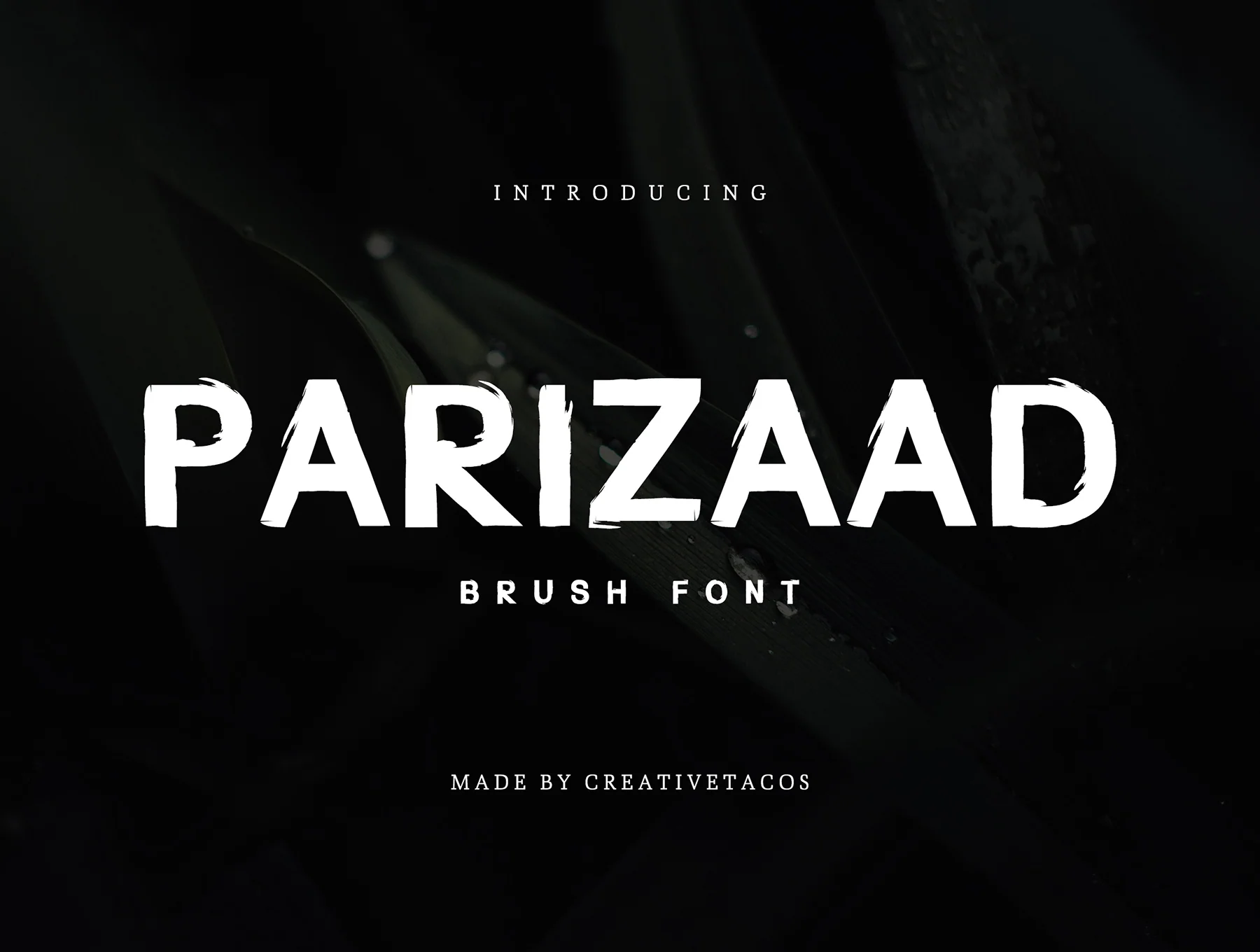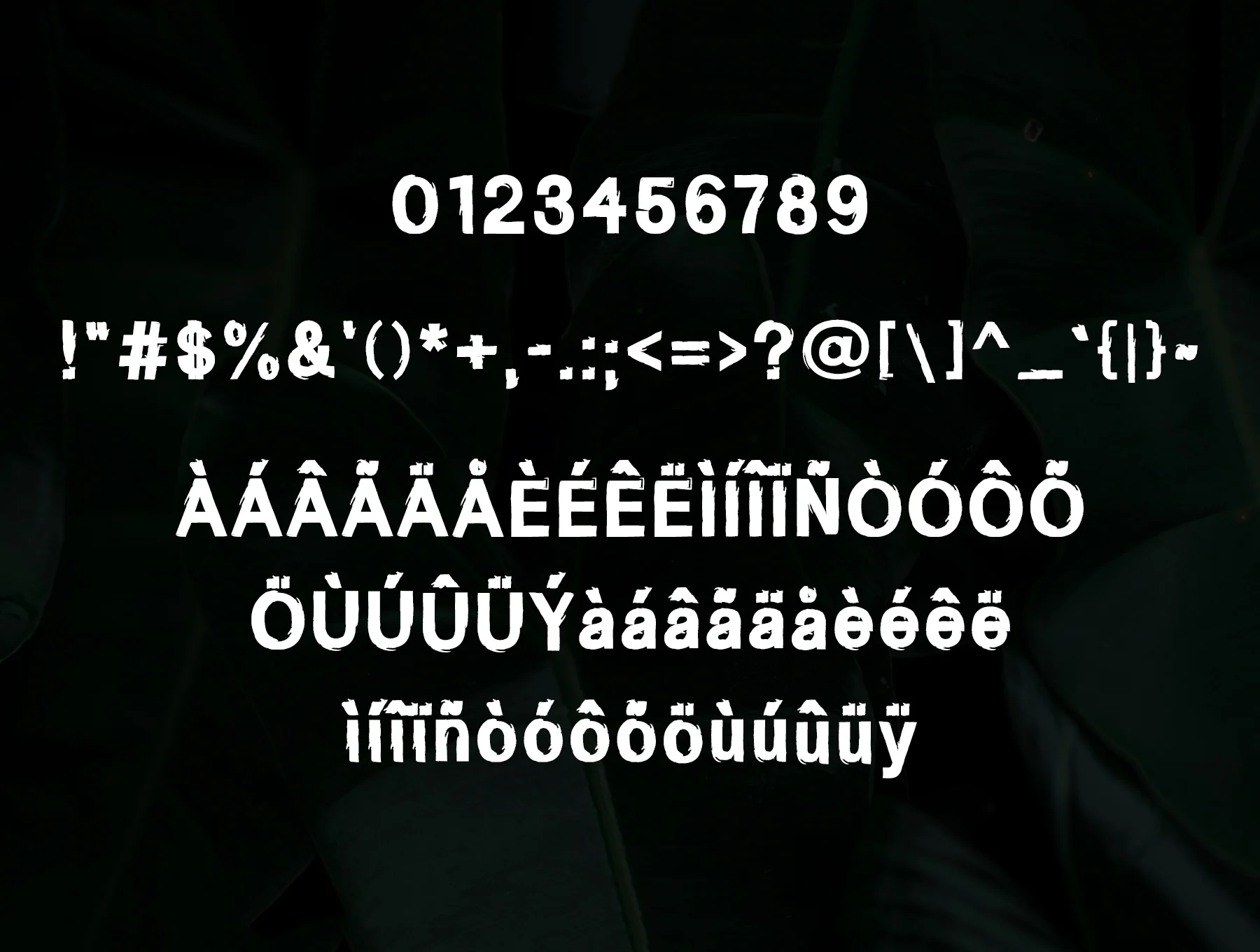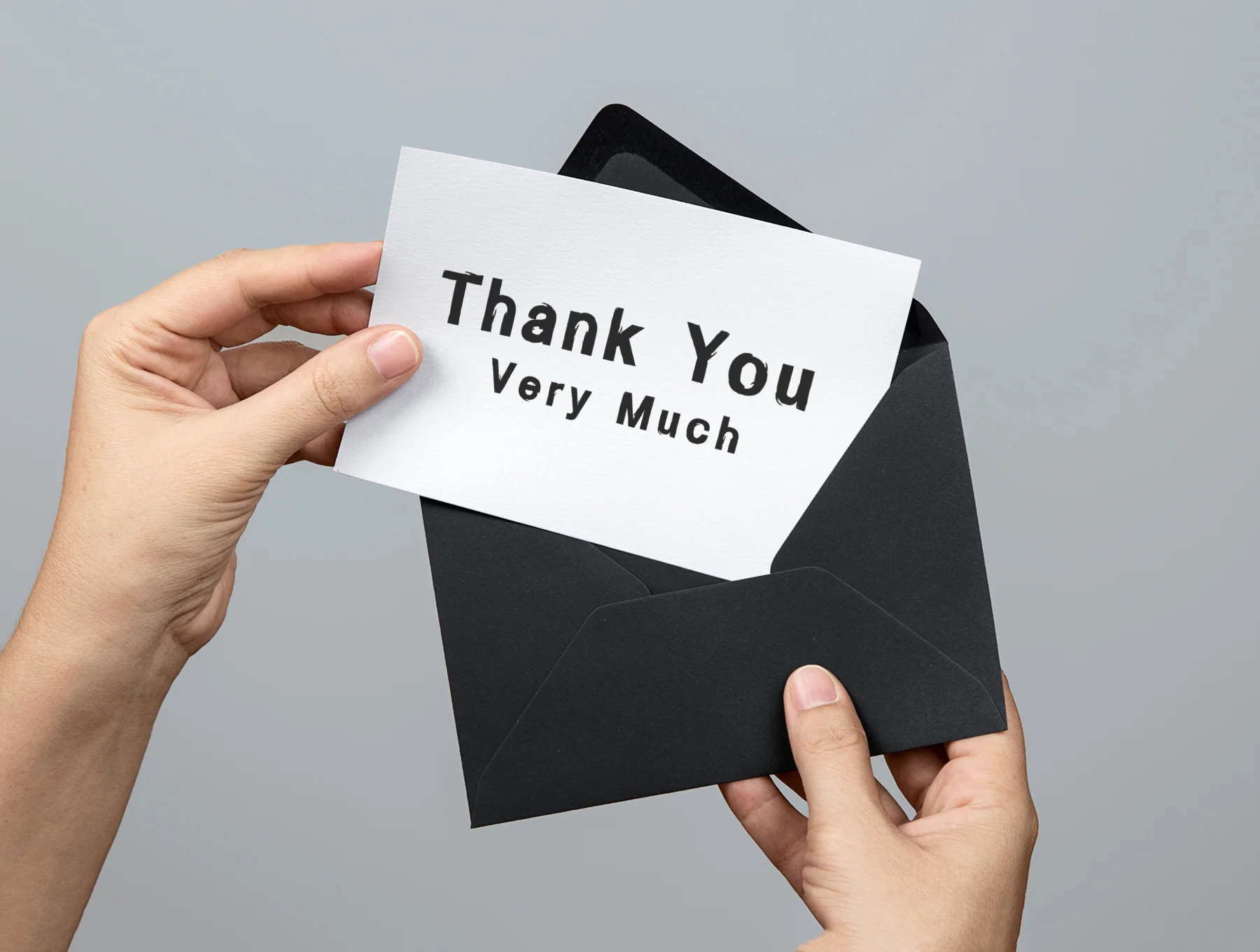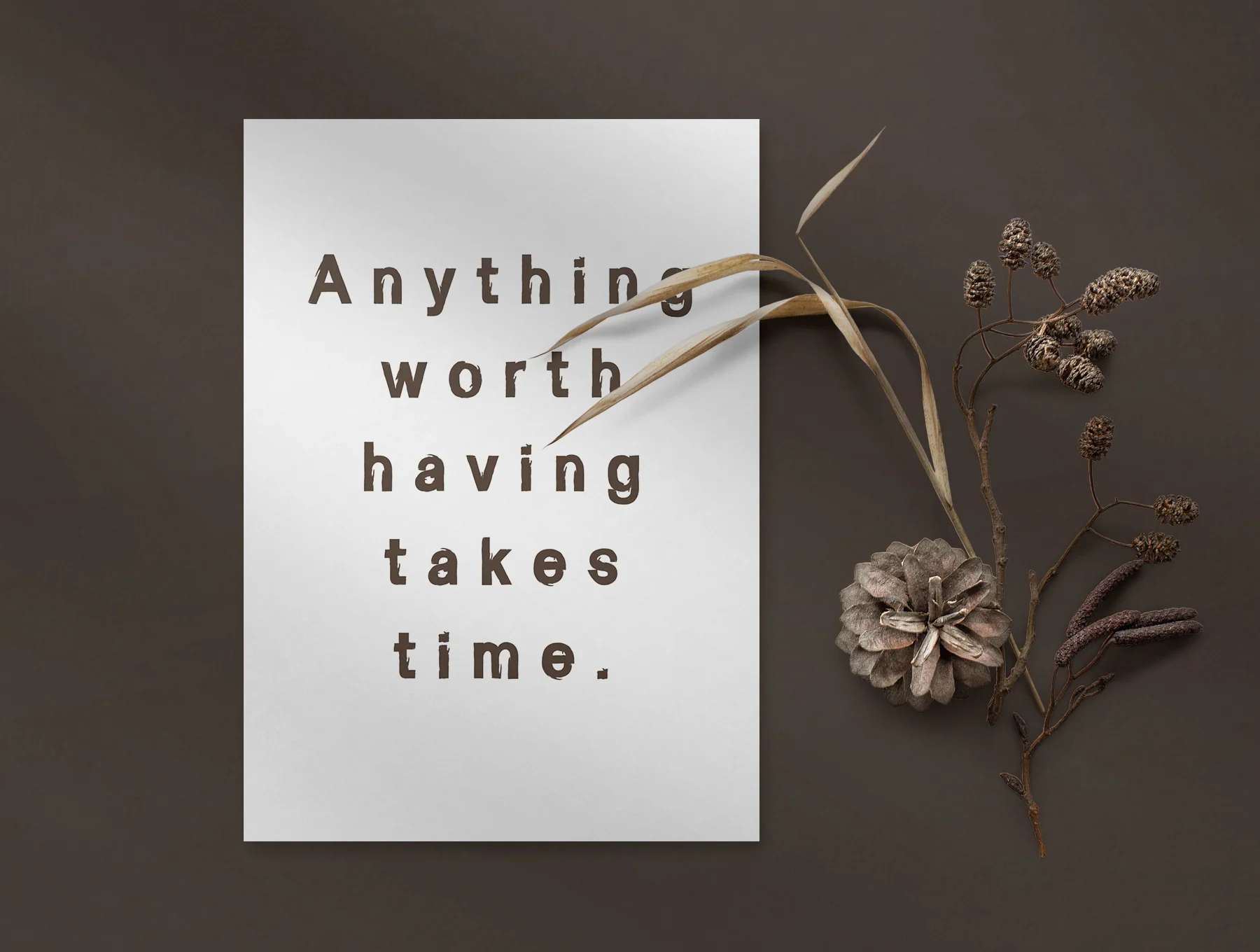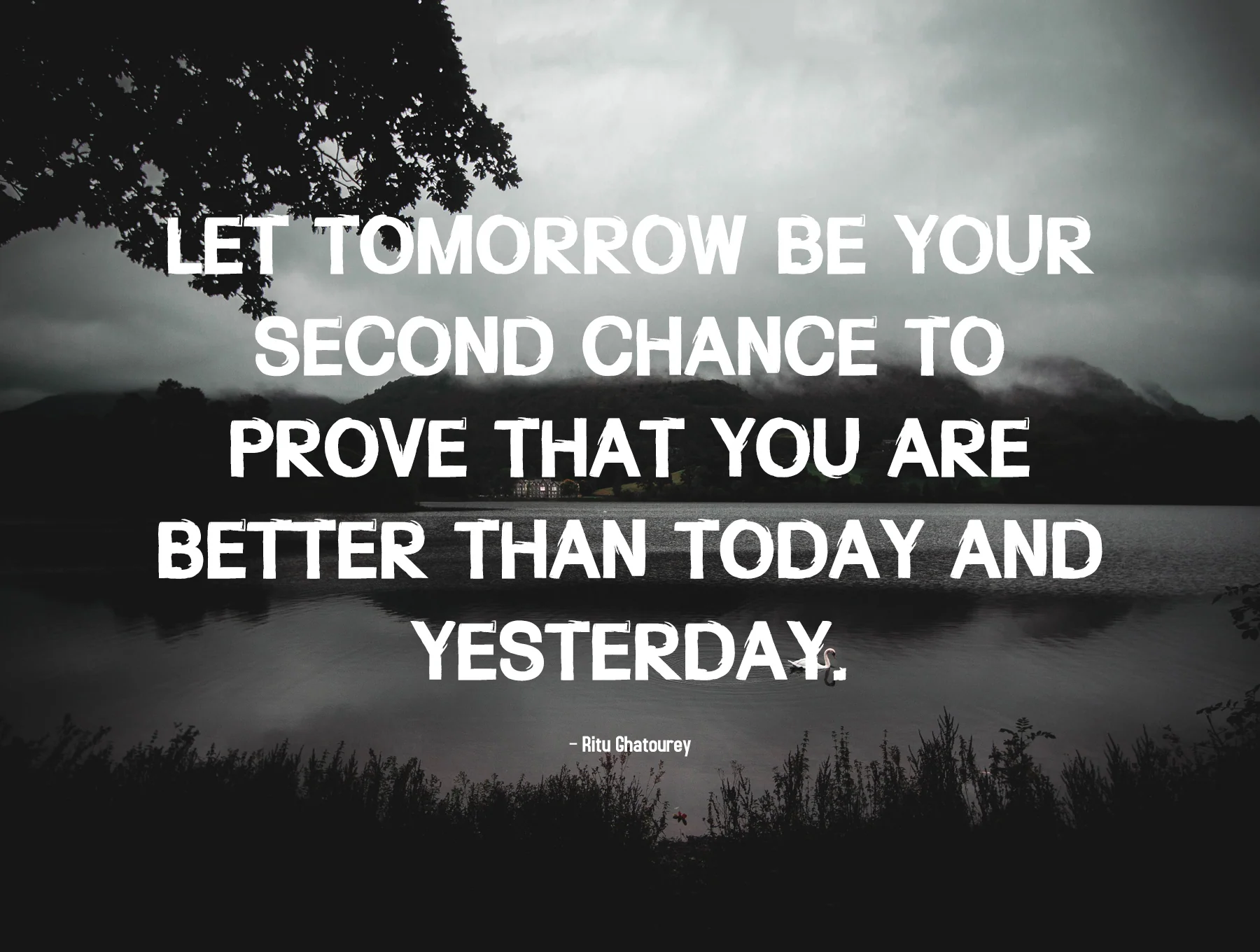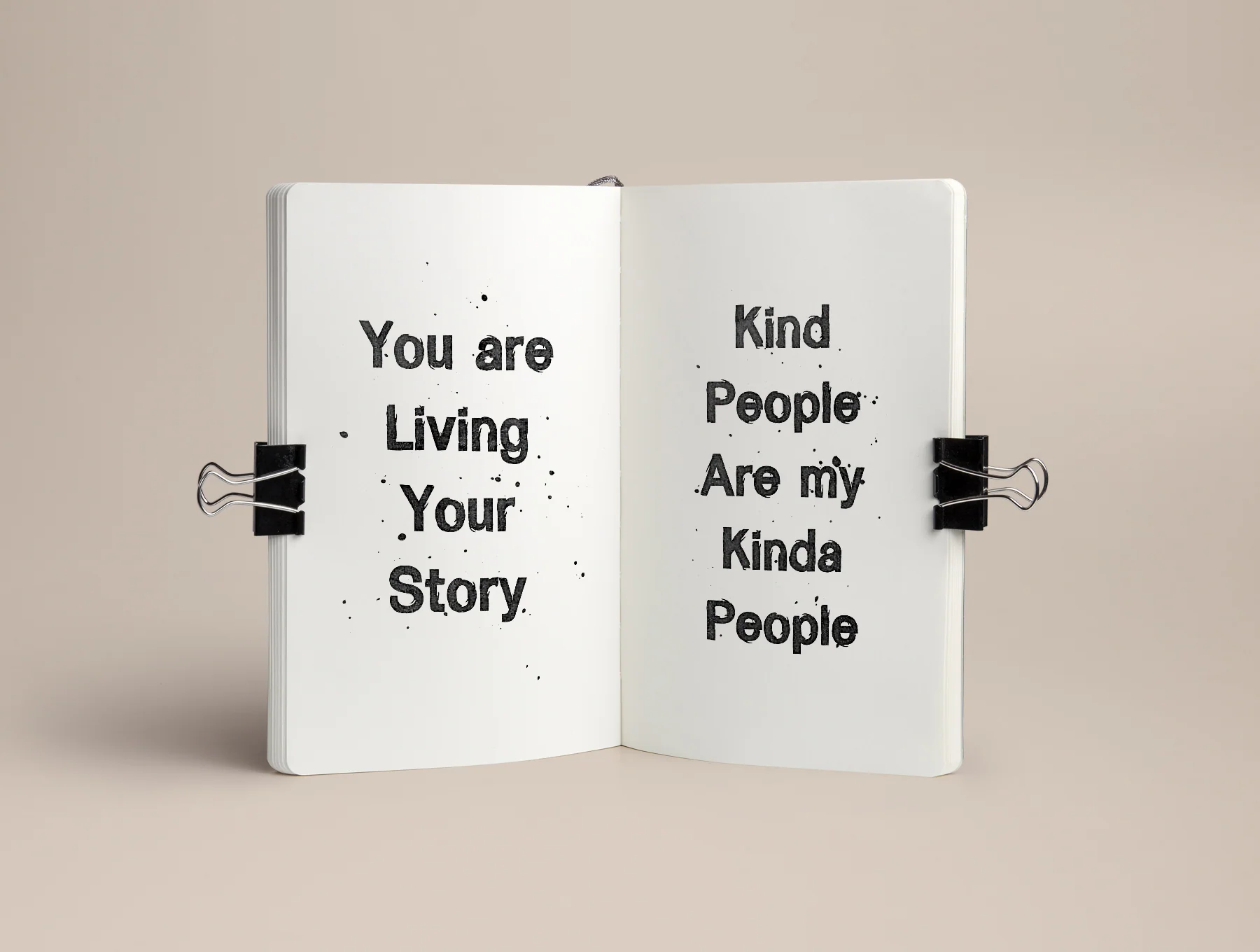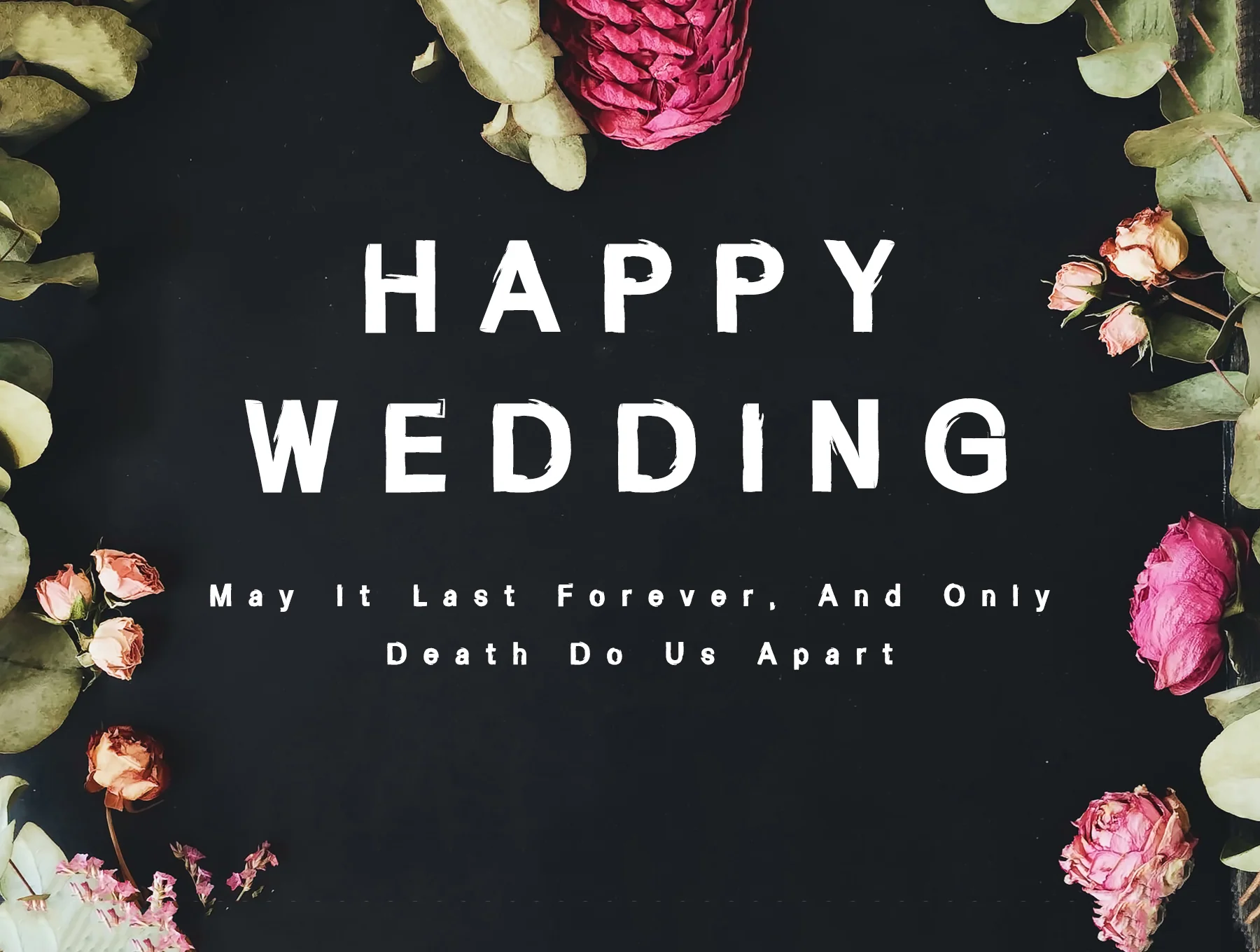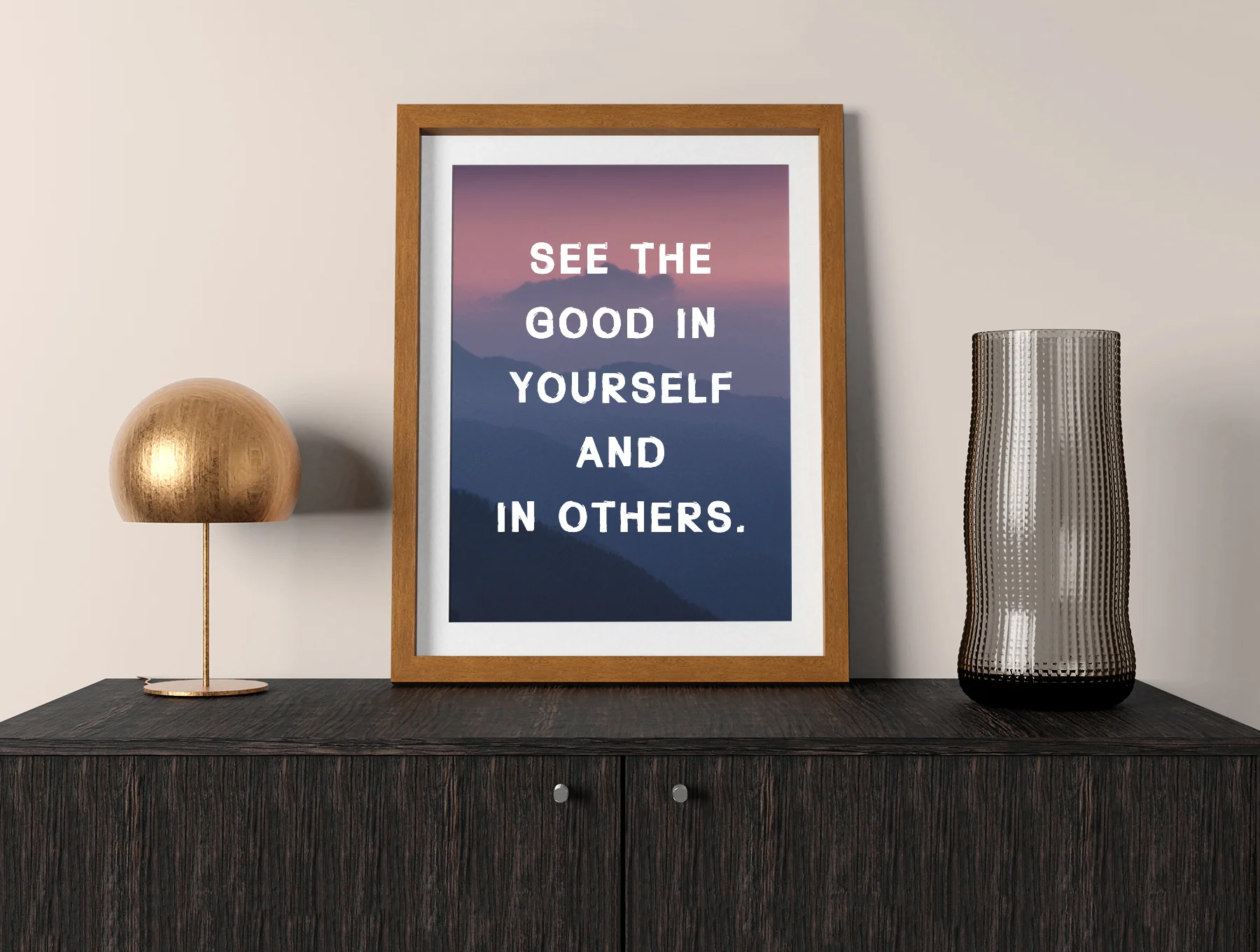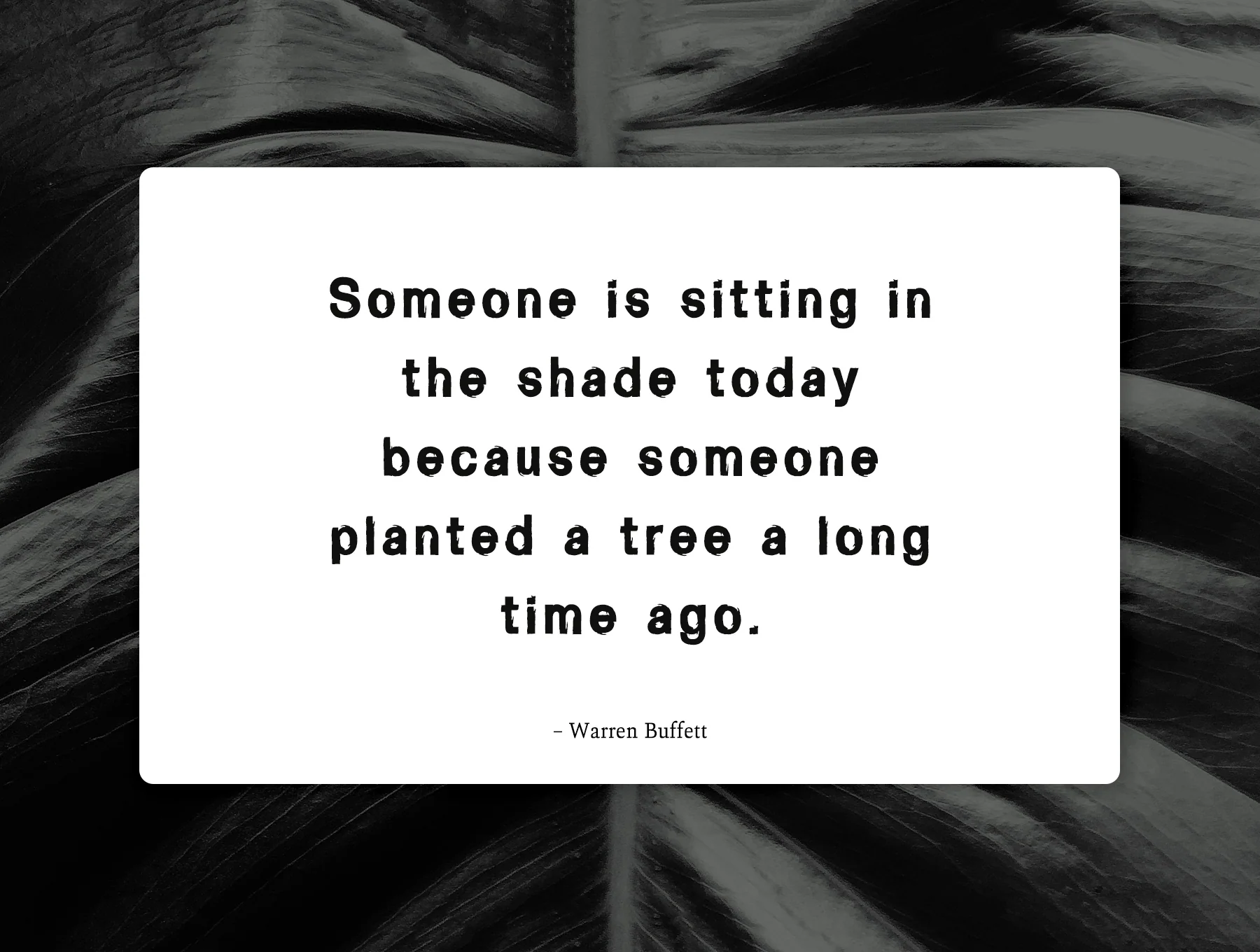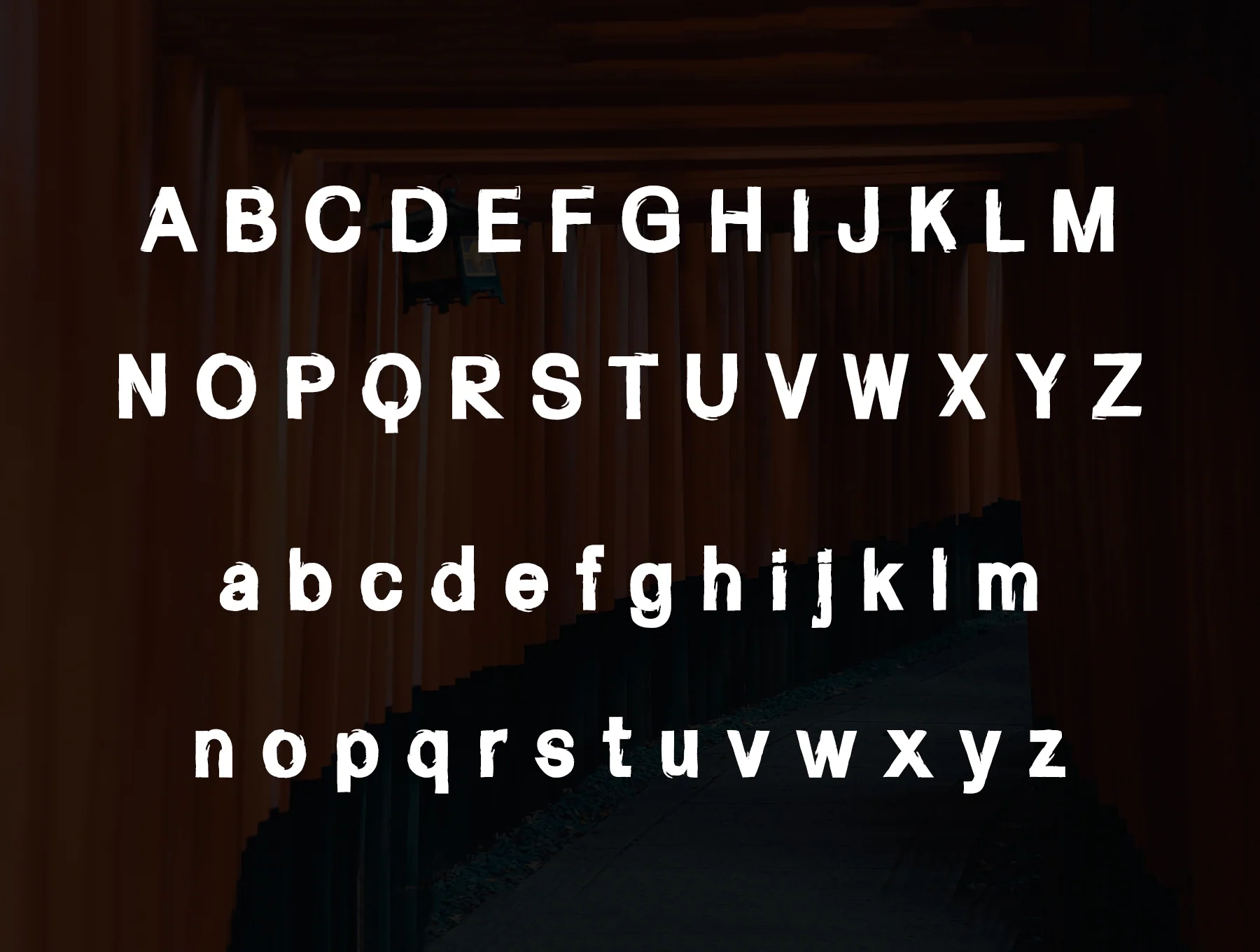
Parizaad Brush Font
Parizaad brush-style typeface
Brush-style typeface
Parizaad Brush Font is an expressive hand-painted typeface with strong forms and lively strokes, ideal for adding character to creative work. Use it for logos, branding, packaging, posters, headlines, quotes, magazines, web layouts, ads, invitations, books, and more. Includes Regular weight in OTF, TTF, and web font formats, with uppercase, lowercase, numbers, punctuation, symbols, and multilingual support.